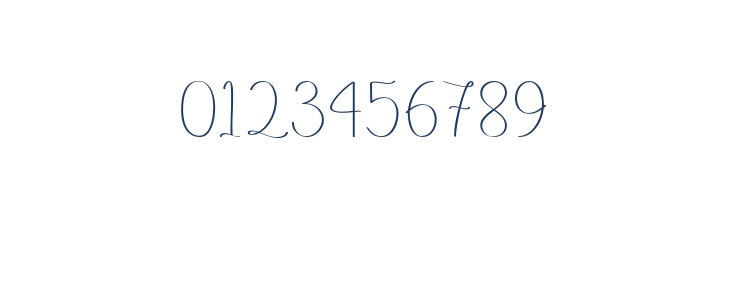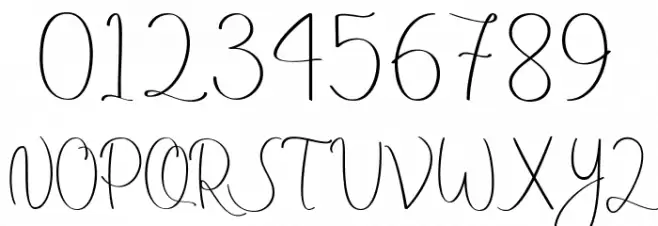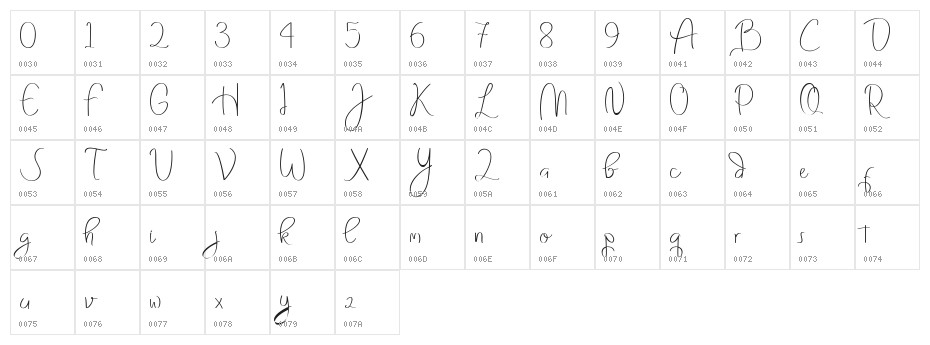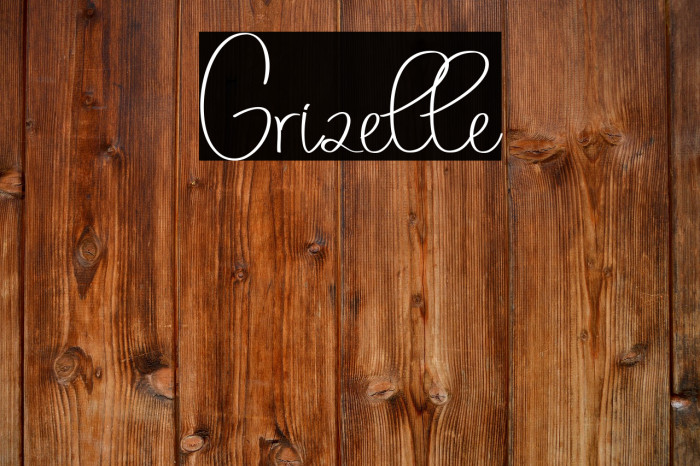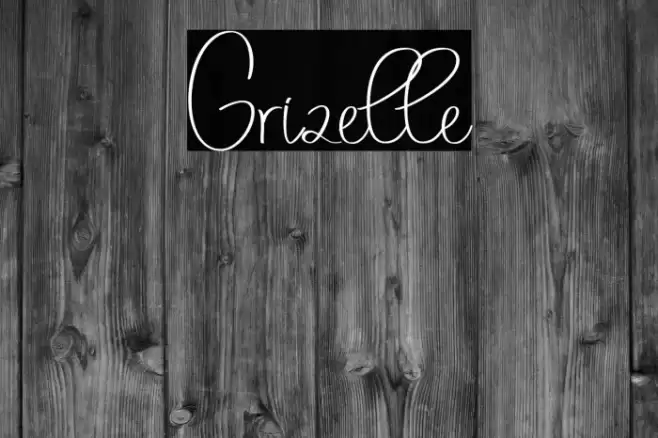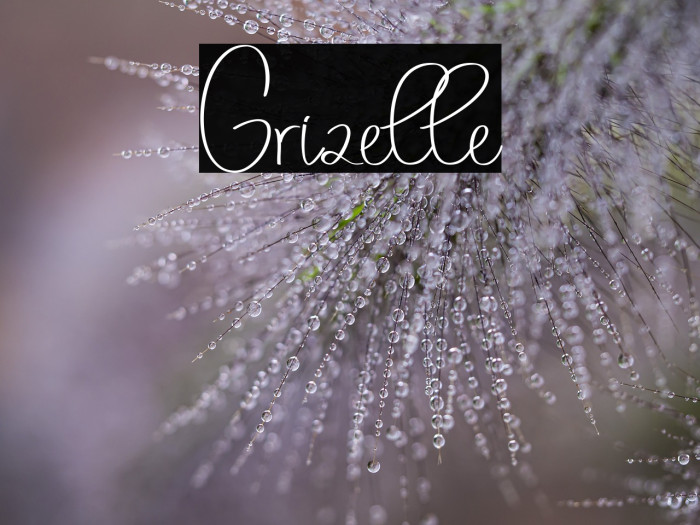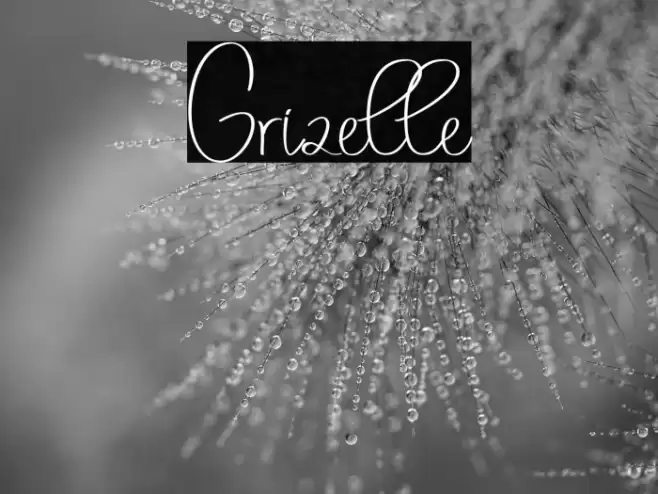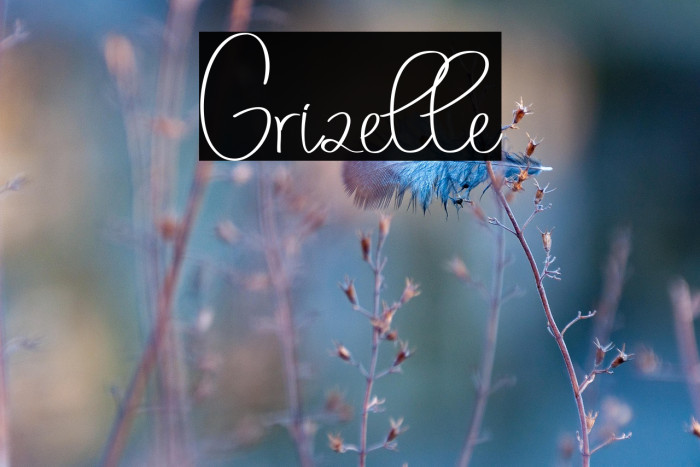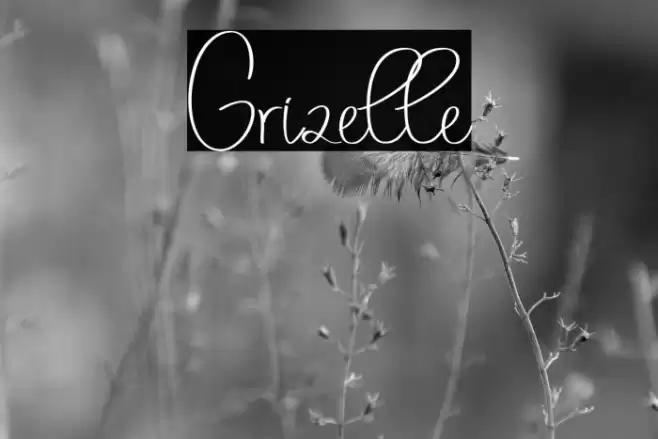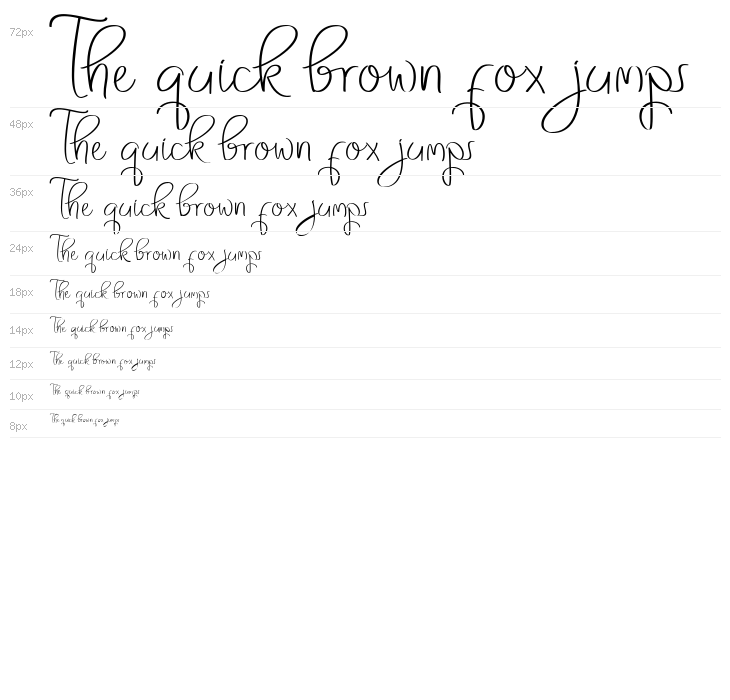
Grizelle Font
Grizelle Description
This font features an elegant, flowing script style with a handwritten appearance. The characters are connected with smooth, continuous strokes, giving it a graceful and sophisticated look. The uppercase letters are tall and slightly narrow, while the lowercase letters are more rounded and compact. The numbers maintain the same fluidity, with a consistent stroke width throughout. Special characters are integrated seamlessly, matching the overall aesthetic. This font exudes a sense of elegance and creativity, making it suitable for artistic and decorative purposes.
Use CaseLogos, Invitations, Artistic projects
Proposed ProjectsIdeal for wedding invitations, greeting cards, personal branding, and artistic projects.